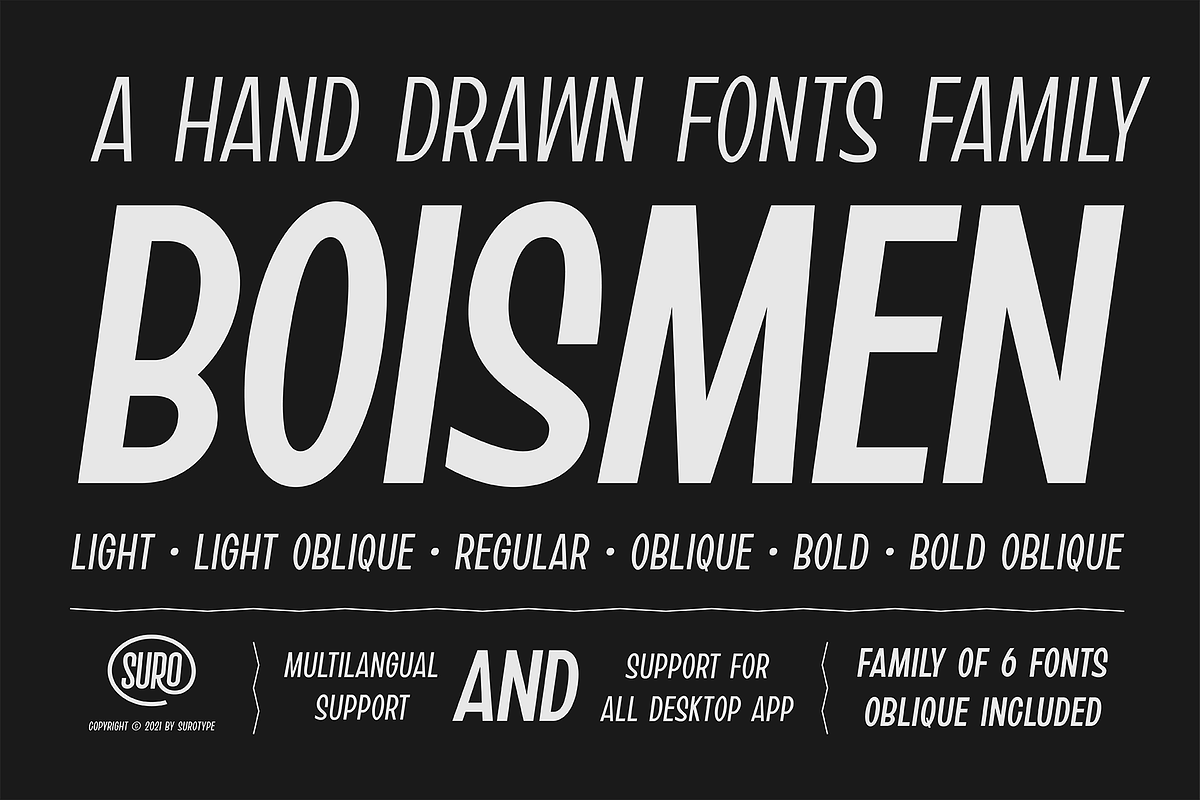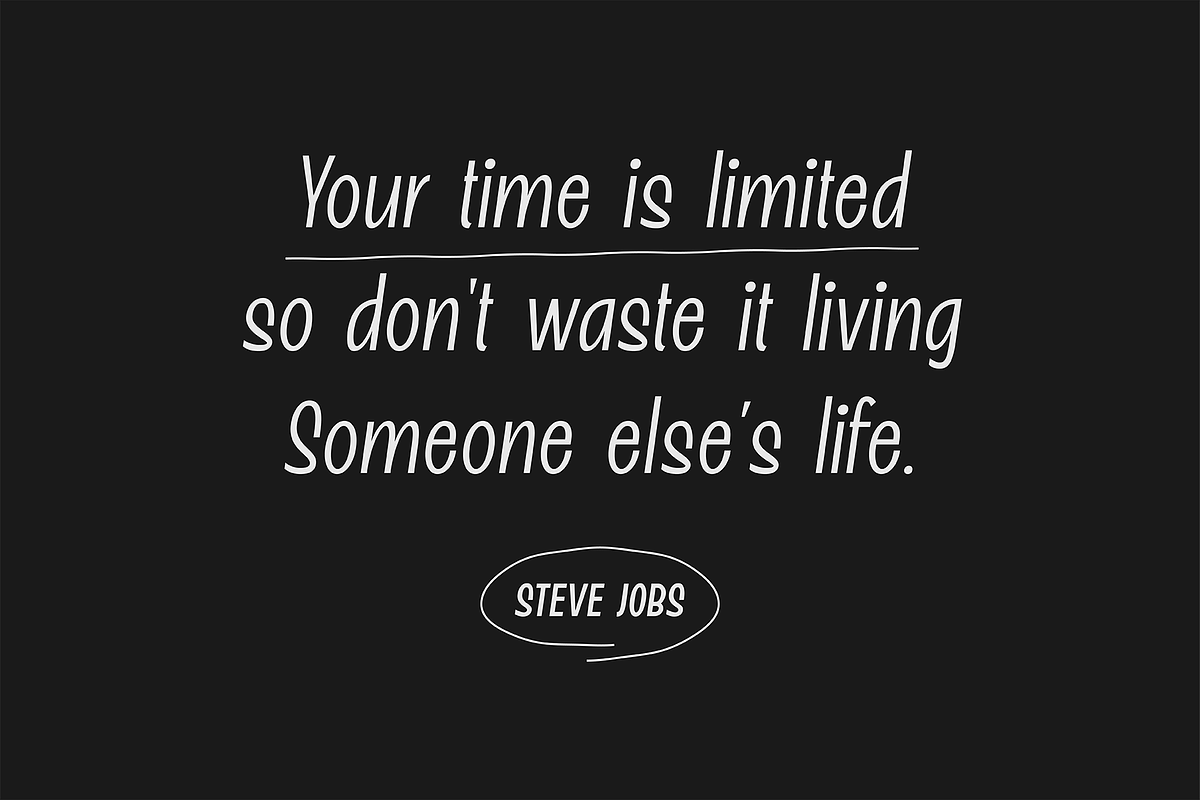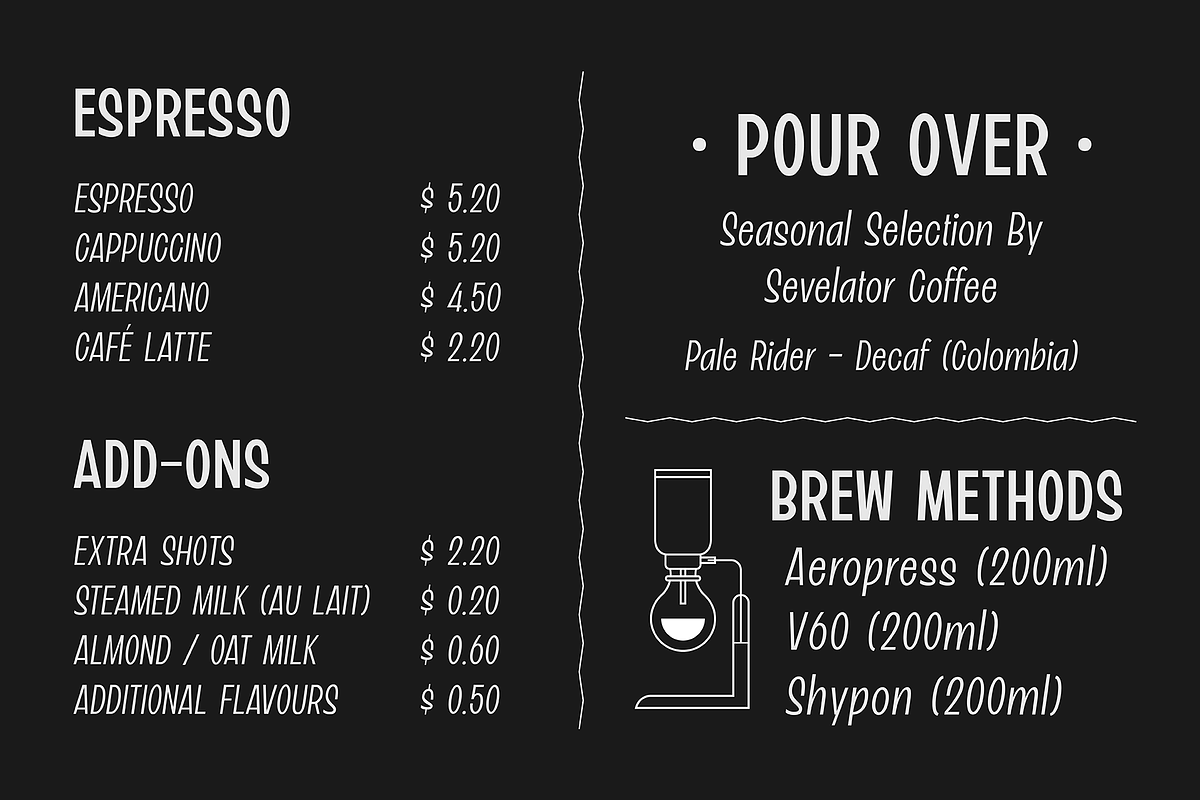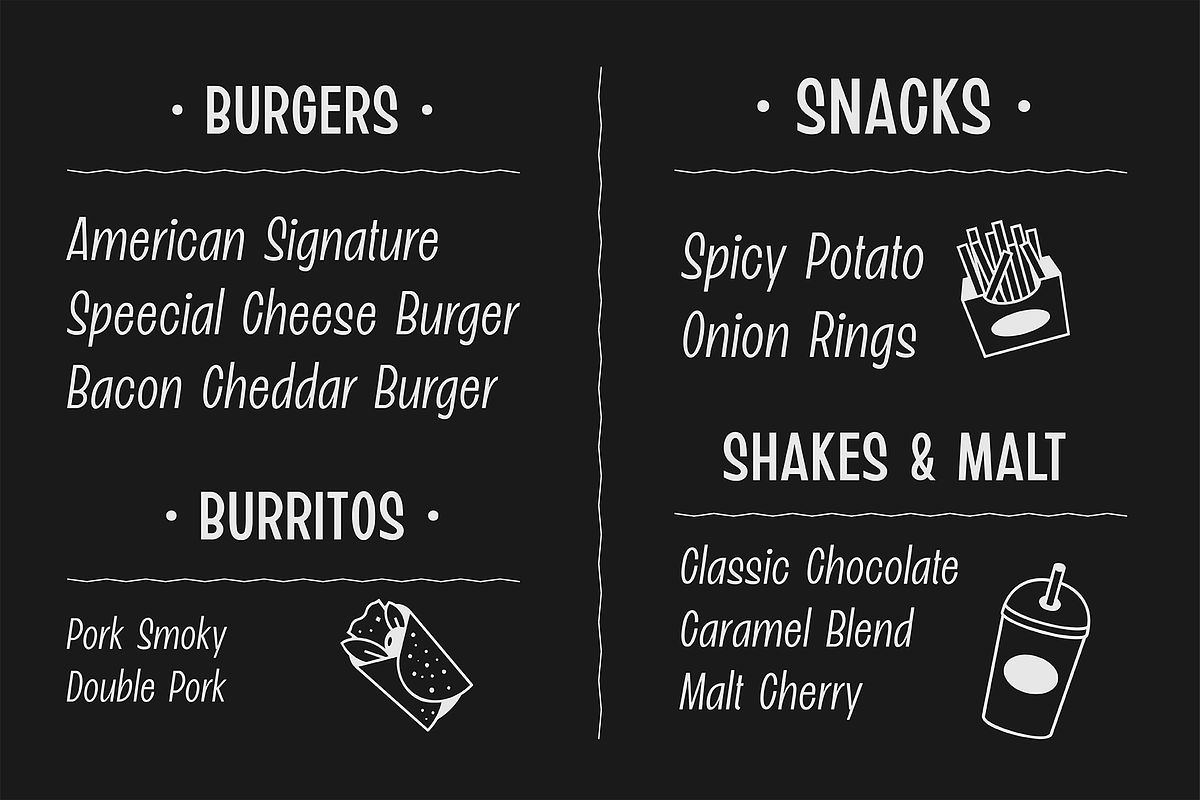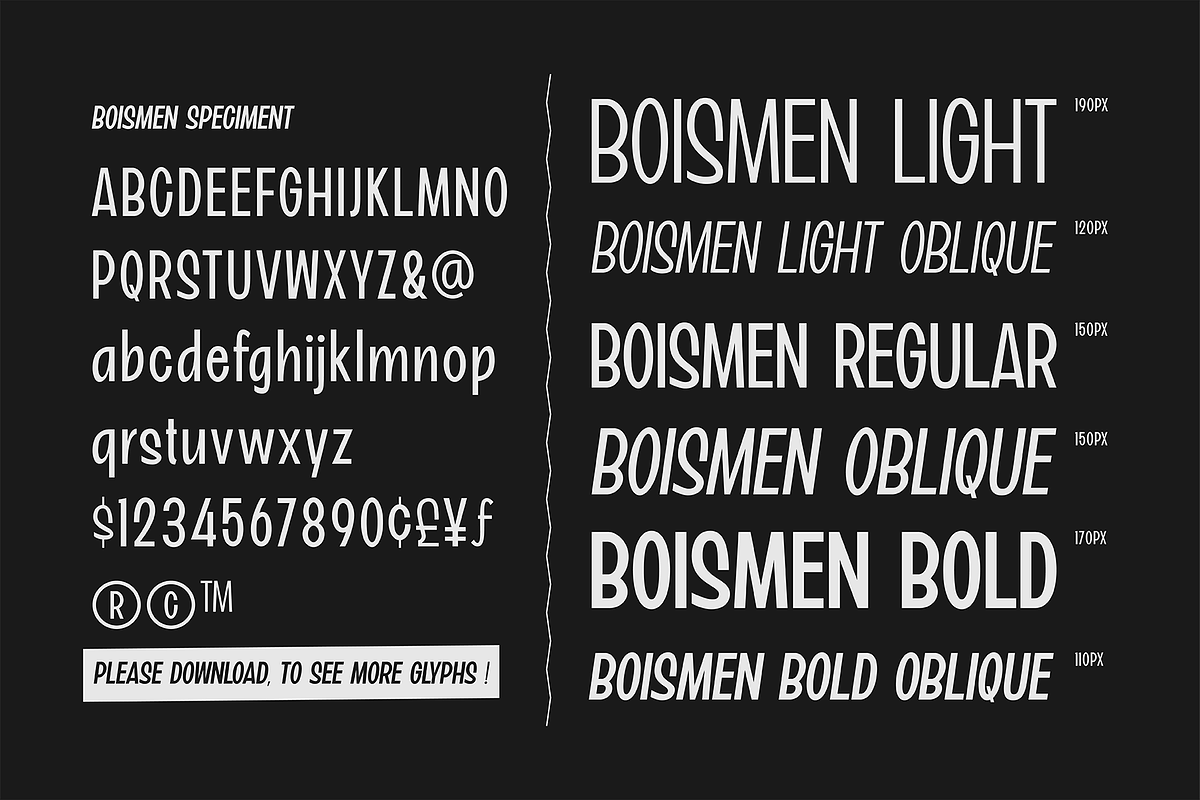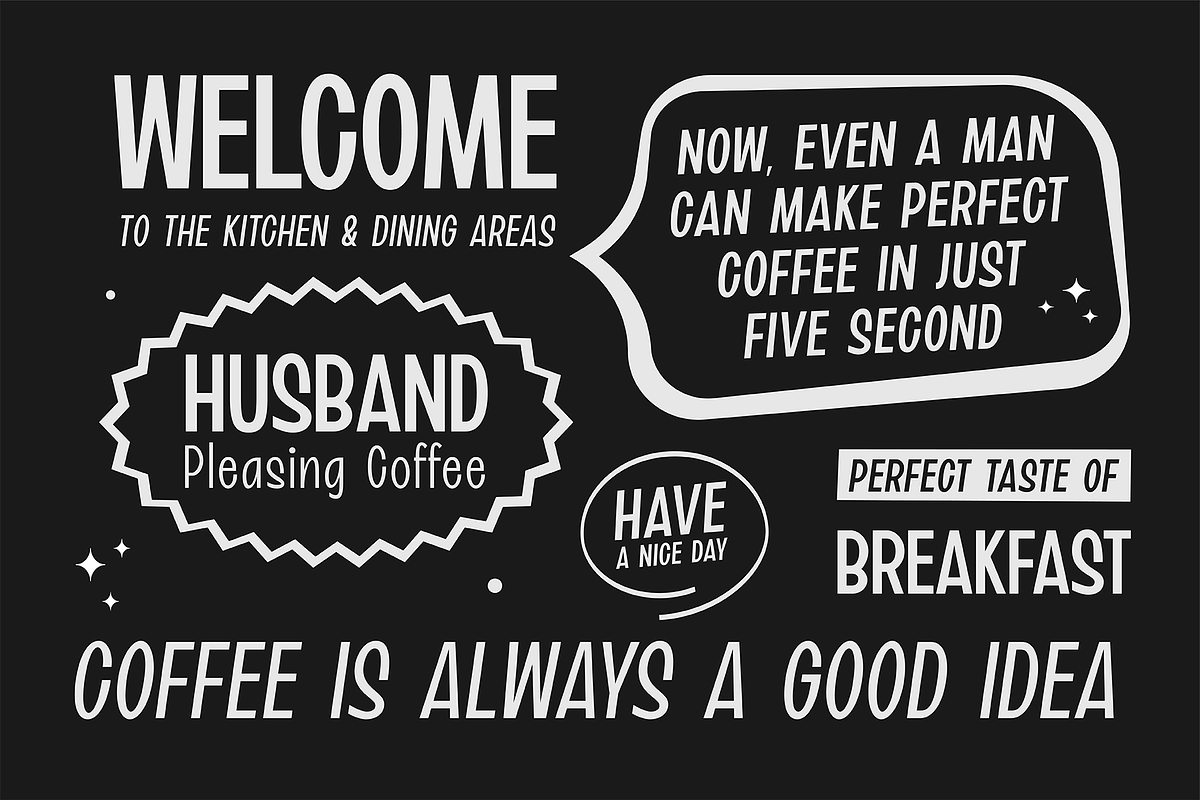
Boismen
Boismen a hand drawn fonts family, comes in three different weight, light, regular and bold so you can use them to your heart's content. Boismen very suitable to use for headlines, branding, movie title, prints, logotype, or anything else.